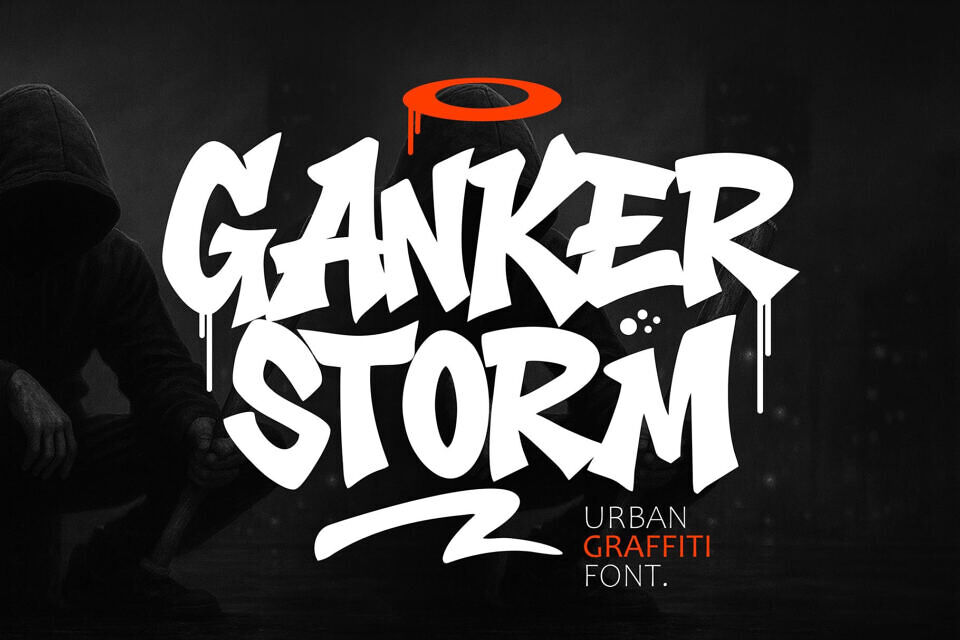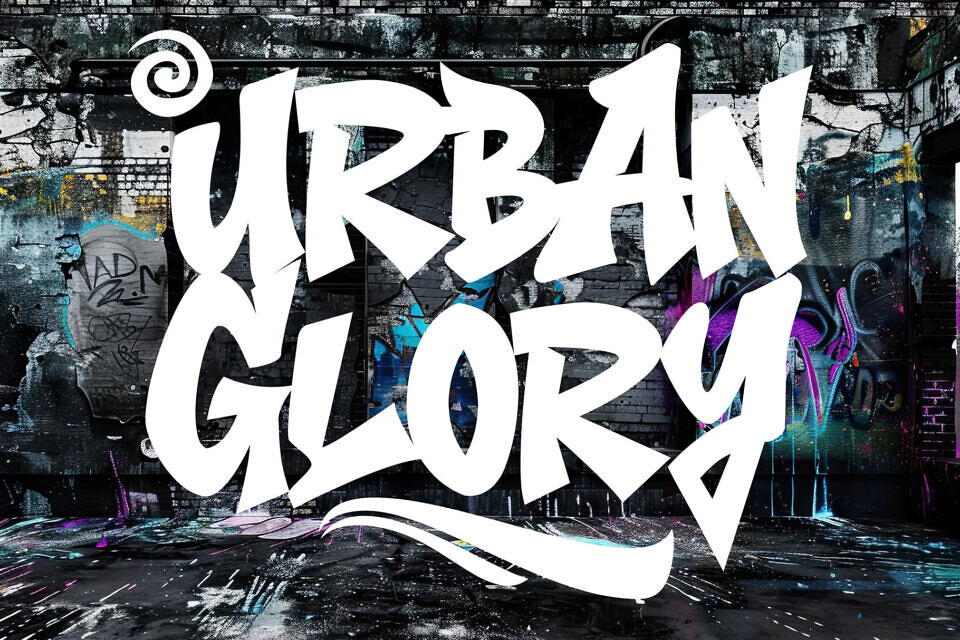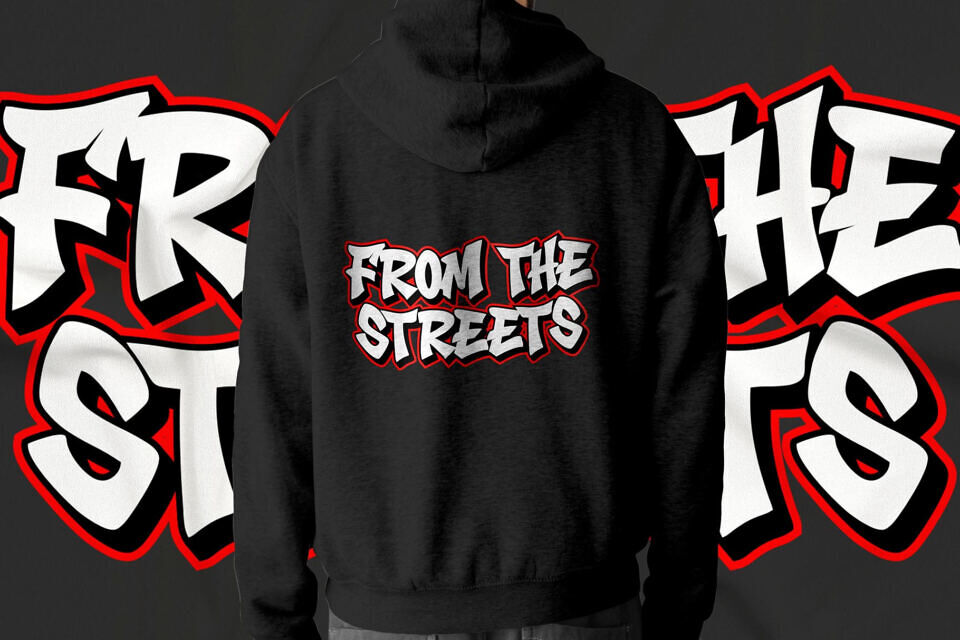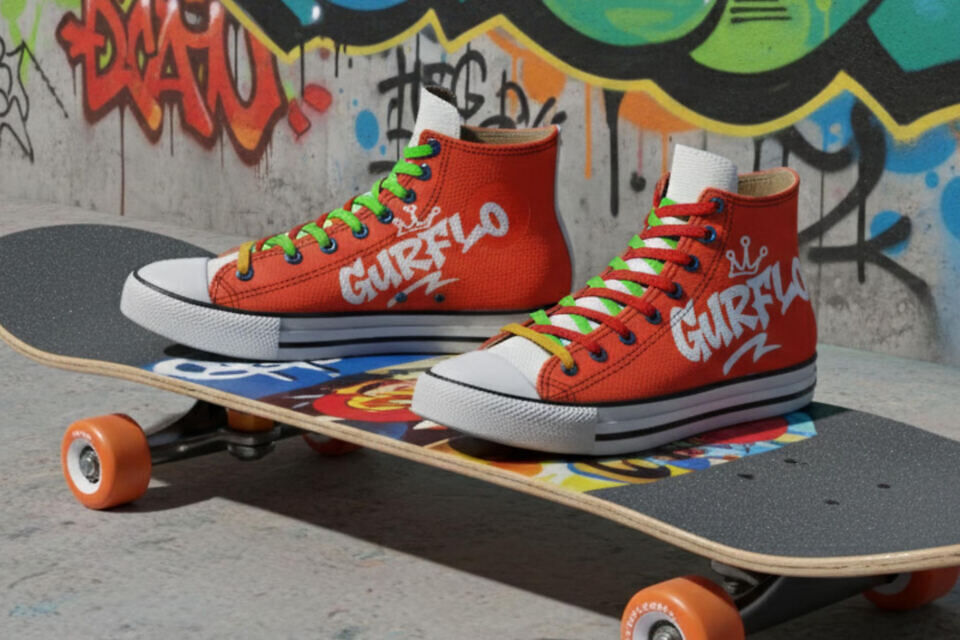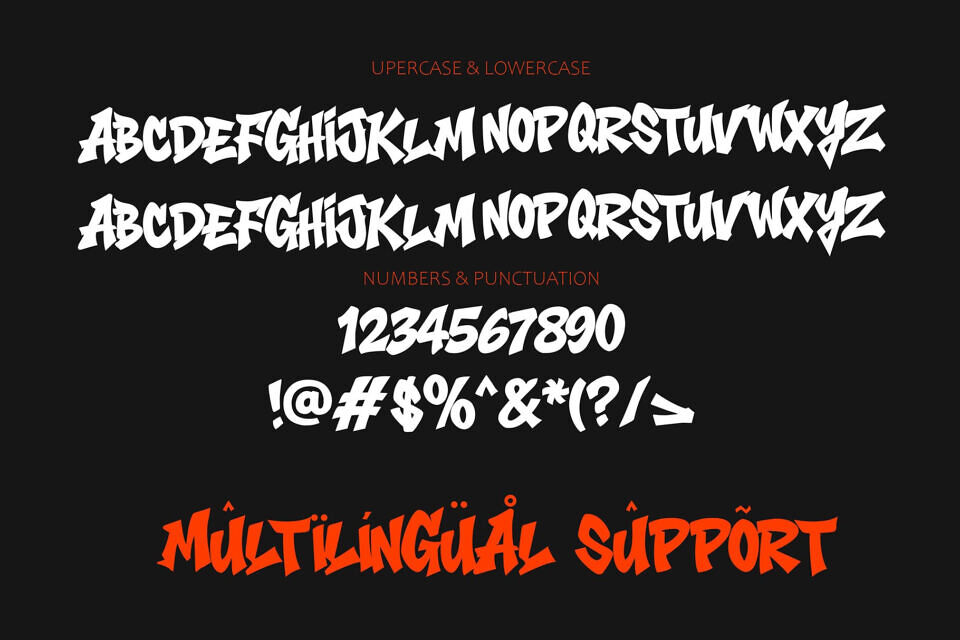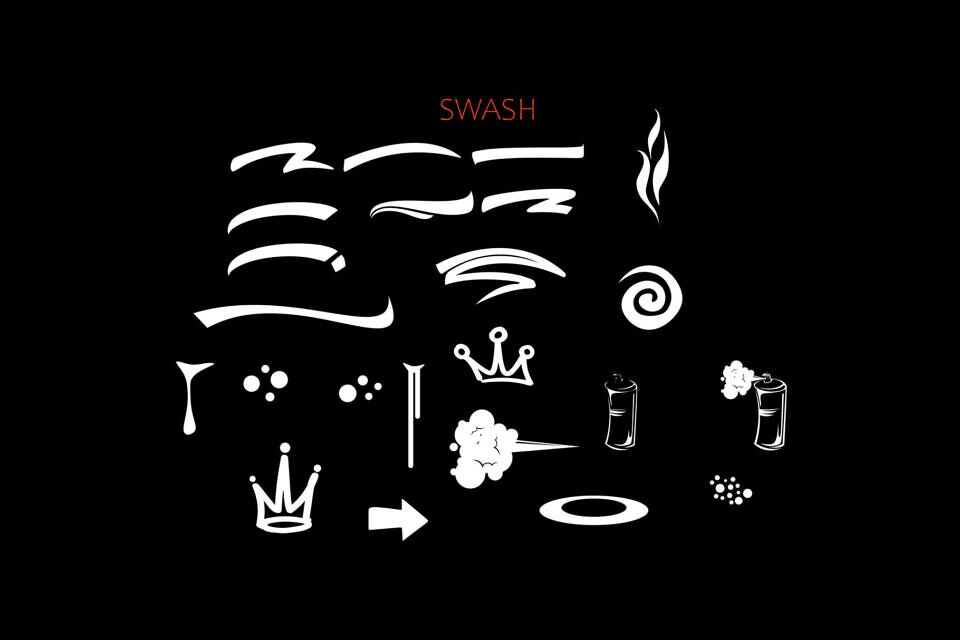
Unleash chaos and creativity with Ganker Storm – Wild Graffiti Font with Swash, a fearless typeface that captures the untamed energy of true street art. Designed by Cikareotype Studio, this font is a celebration of graffiti culture — raw, expressive, and unapologetically bold.
From streetwear branding and posters to music covers and merchandise, this font brings the energy of the streets straight into your designs. Every curve, angle, and brushstroke in Ganker Storm screams urban rebellion. It’s not just a graffiti font — it’s a movement of creativity and attitude.